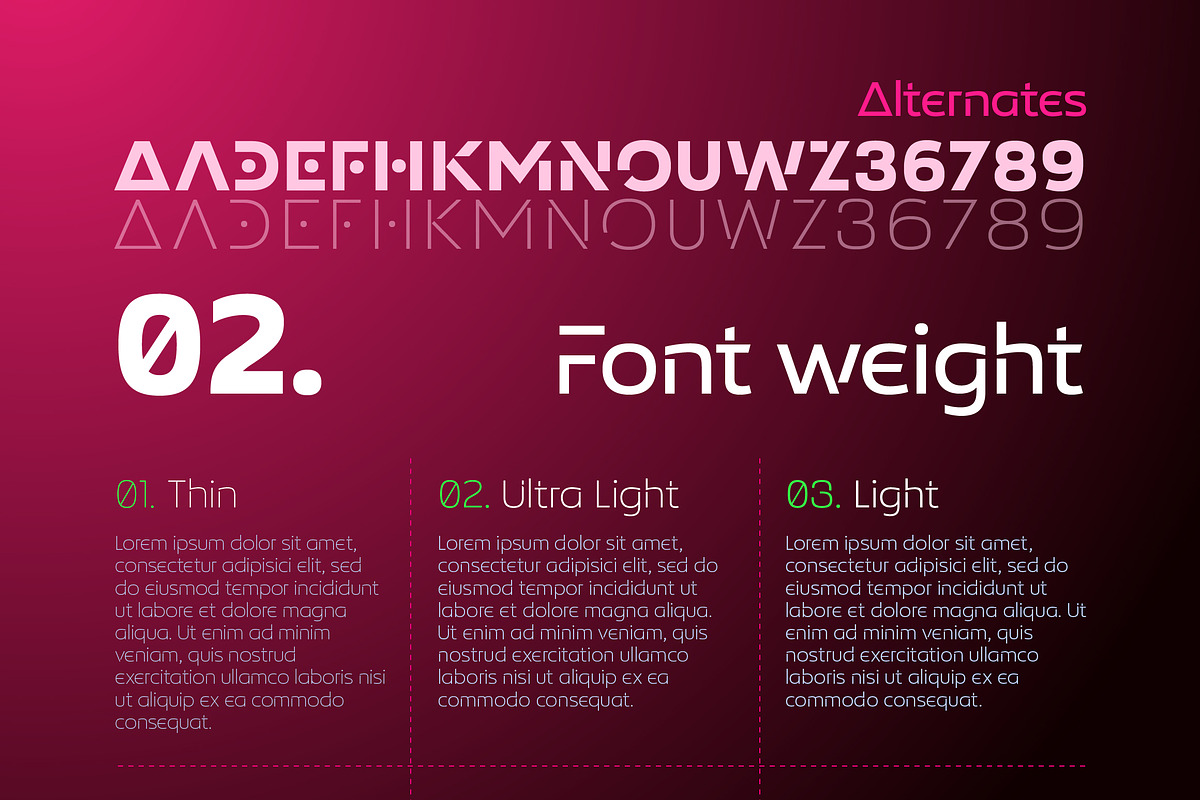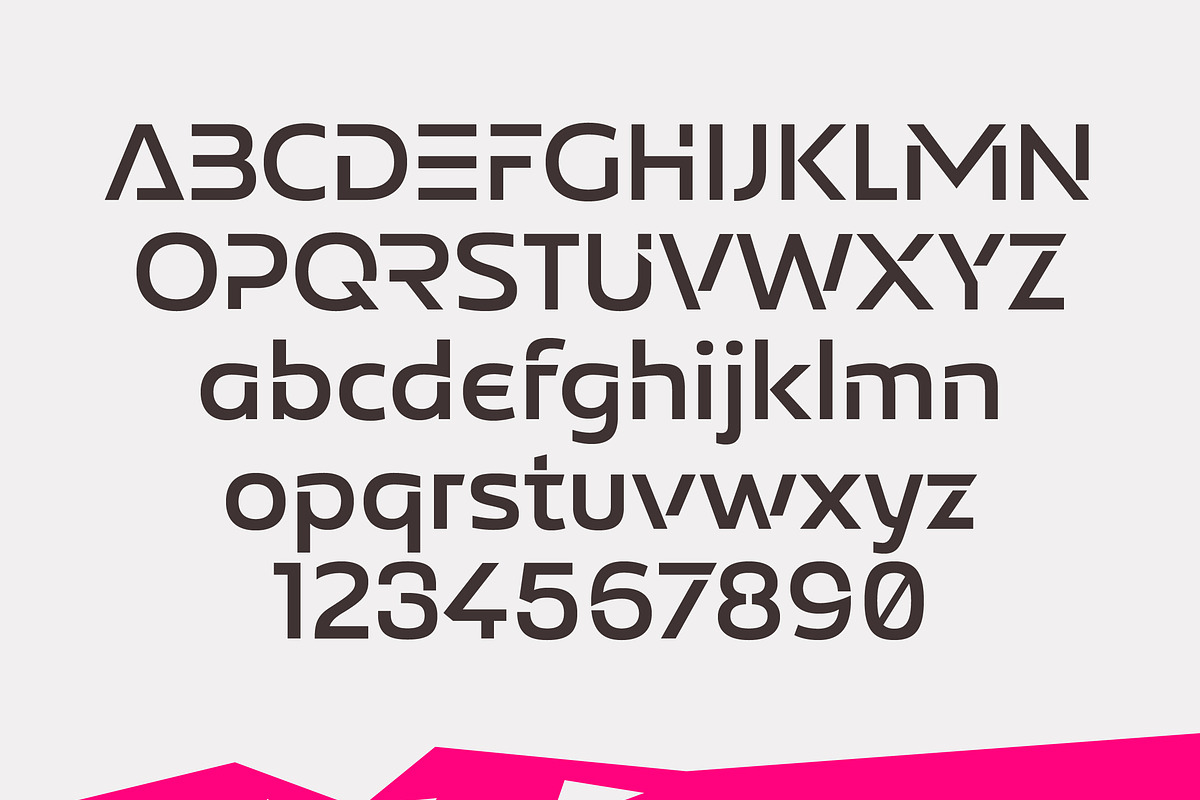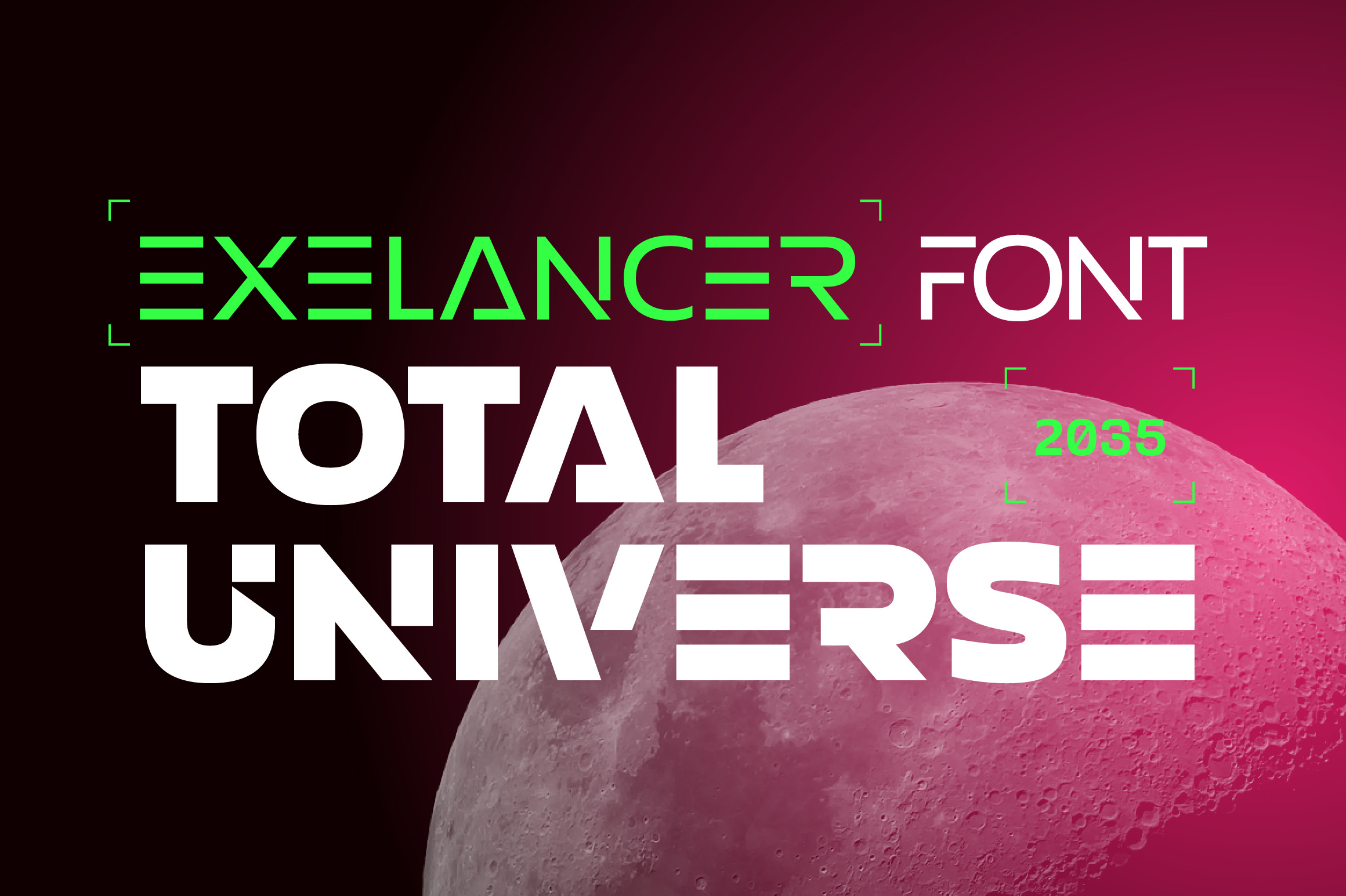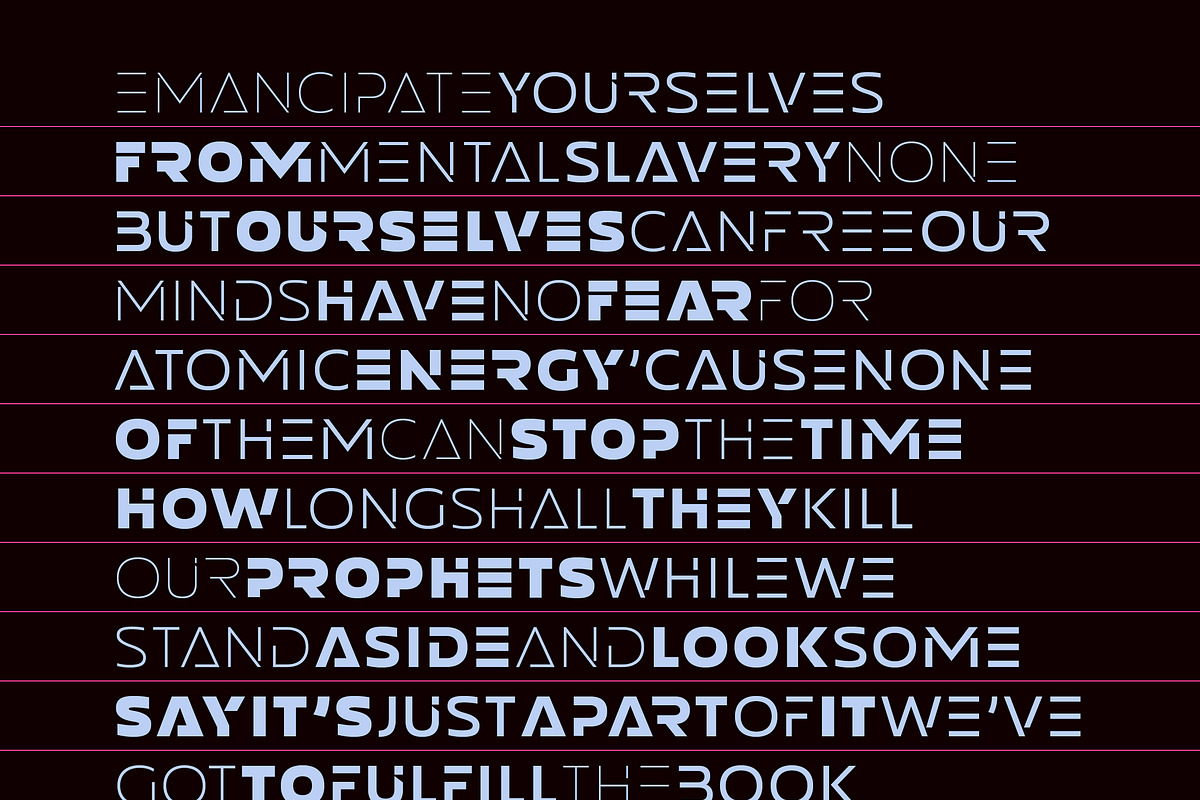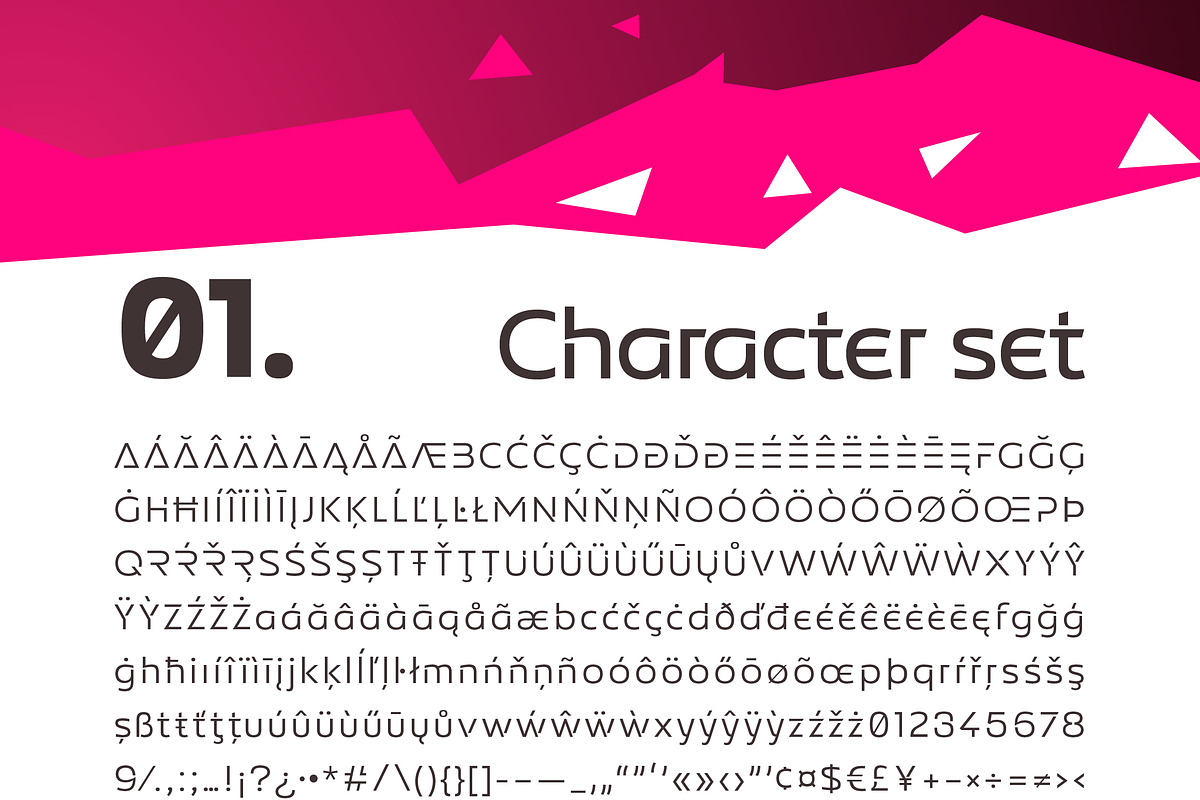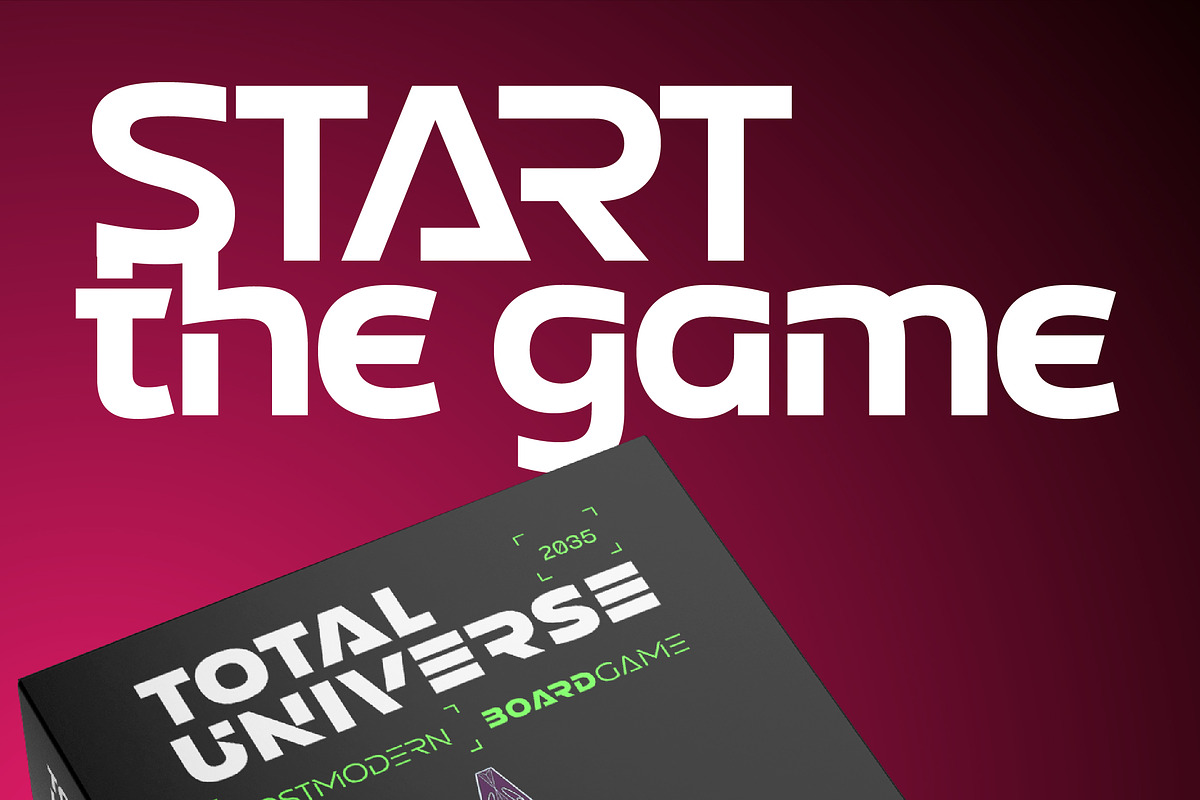
Stellar font family Exelancer
We are proud to present the futuristic Excelancer font. This font was inspired by my passion for space stories. The uniqueness of this font lies in the rare combination of a wibrant style of decorative capital letters and perfectly balanced lowercase characters that read well in any massive text. Thus, you get a universal font kit with which all the tasks of futuristic design are solved. However, this font will become a decoration not only for fantastic stories, but also for everything related to technology, development, progress and even sports. In short, this is the pure energy of the future!
The font contains 10 weights that will help you choose the optimal size for different cases.
Exelancer font is a unique solution for a steep typography, corporate styles, headlines, in short for all that makes our world unique.